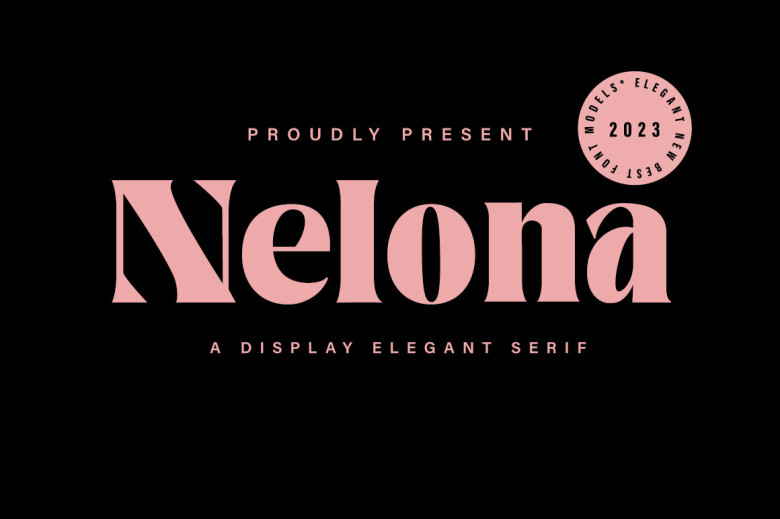
Nelona Font
Nelona is an elegant serif typeface was inspired by its natural, bold appearance of serifs that is so fashionable today. Bold yet balanced and multifaceted in form, Nelona was created for luxury and elegance and includes uppercase letters, numerals and many forms of punctuation, making it suitable as logos, invitation cards, branding photographs, watermarks for ads and social media posts or wedding stationary or special event themes stationarys etc. to make an overall theme that ties together successfully.
Nelona Serif Font